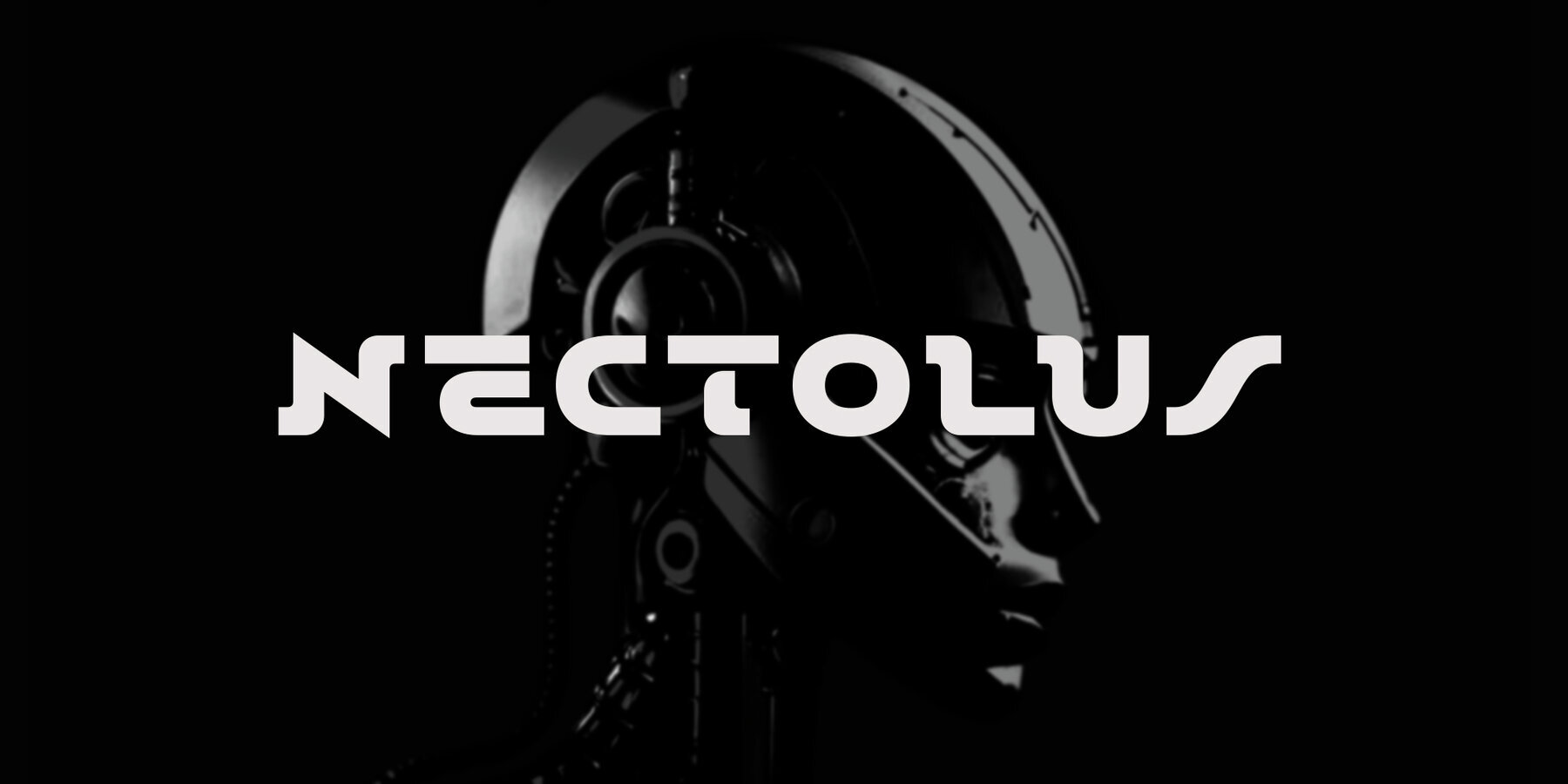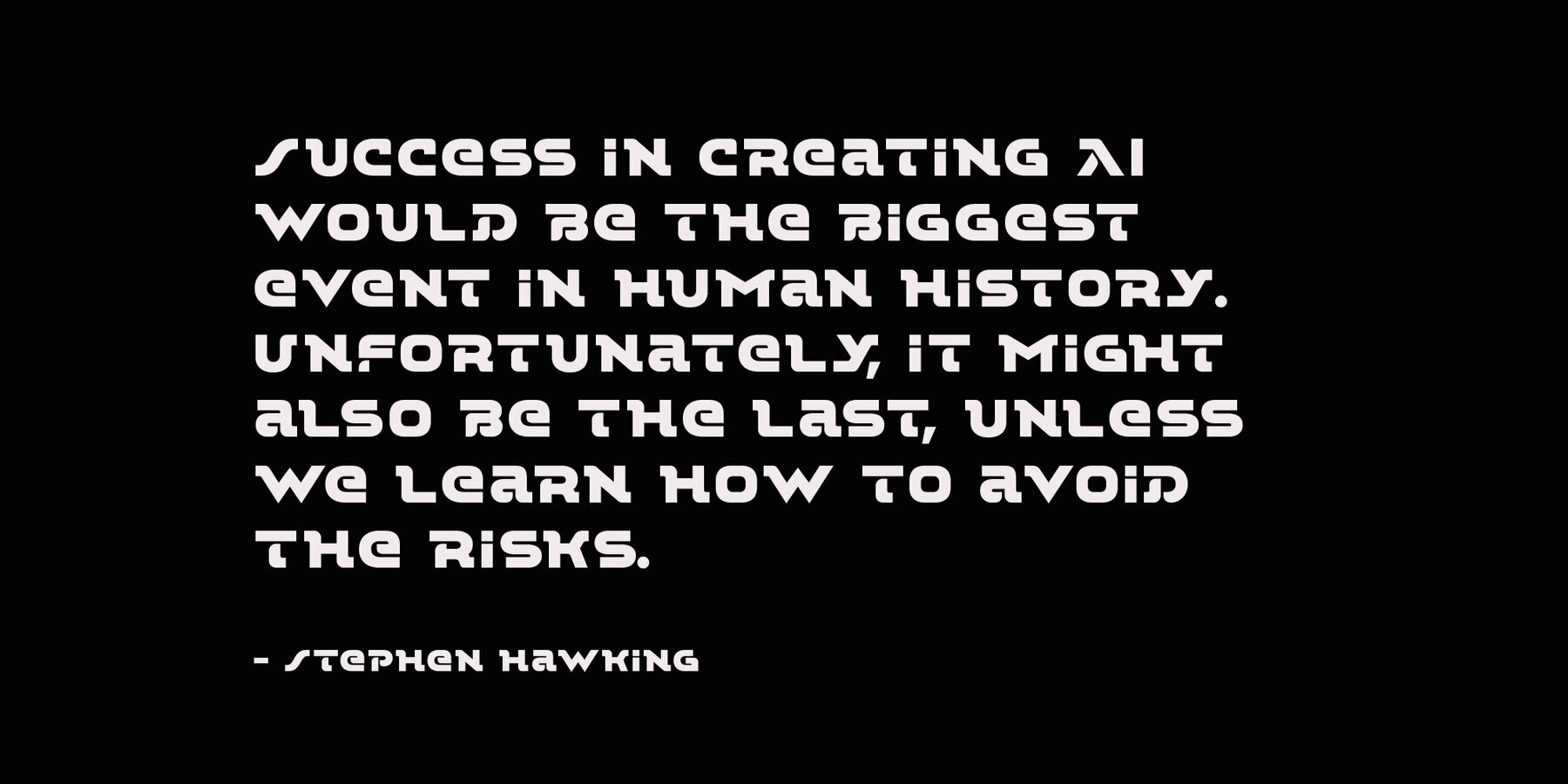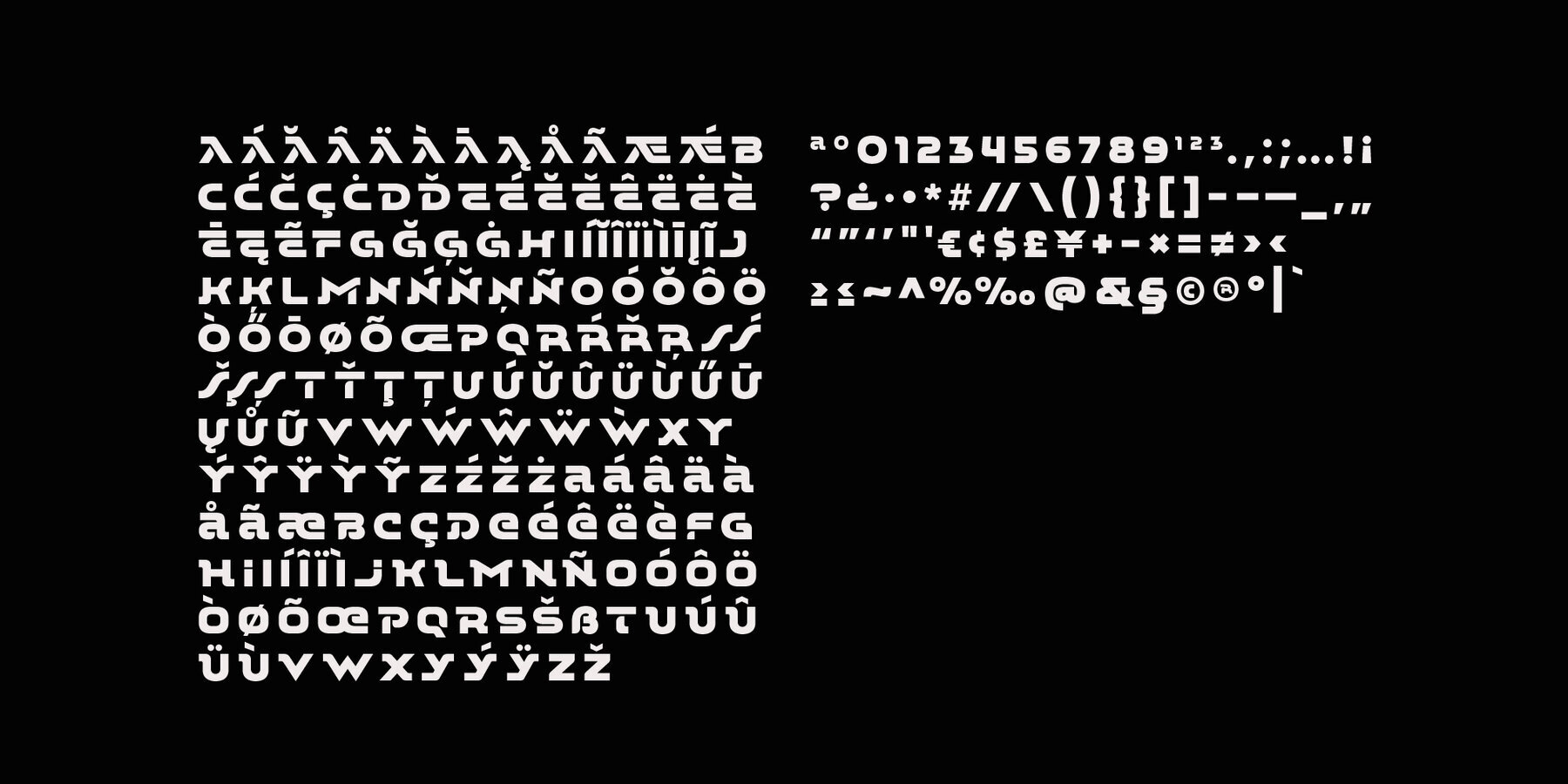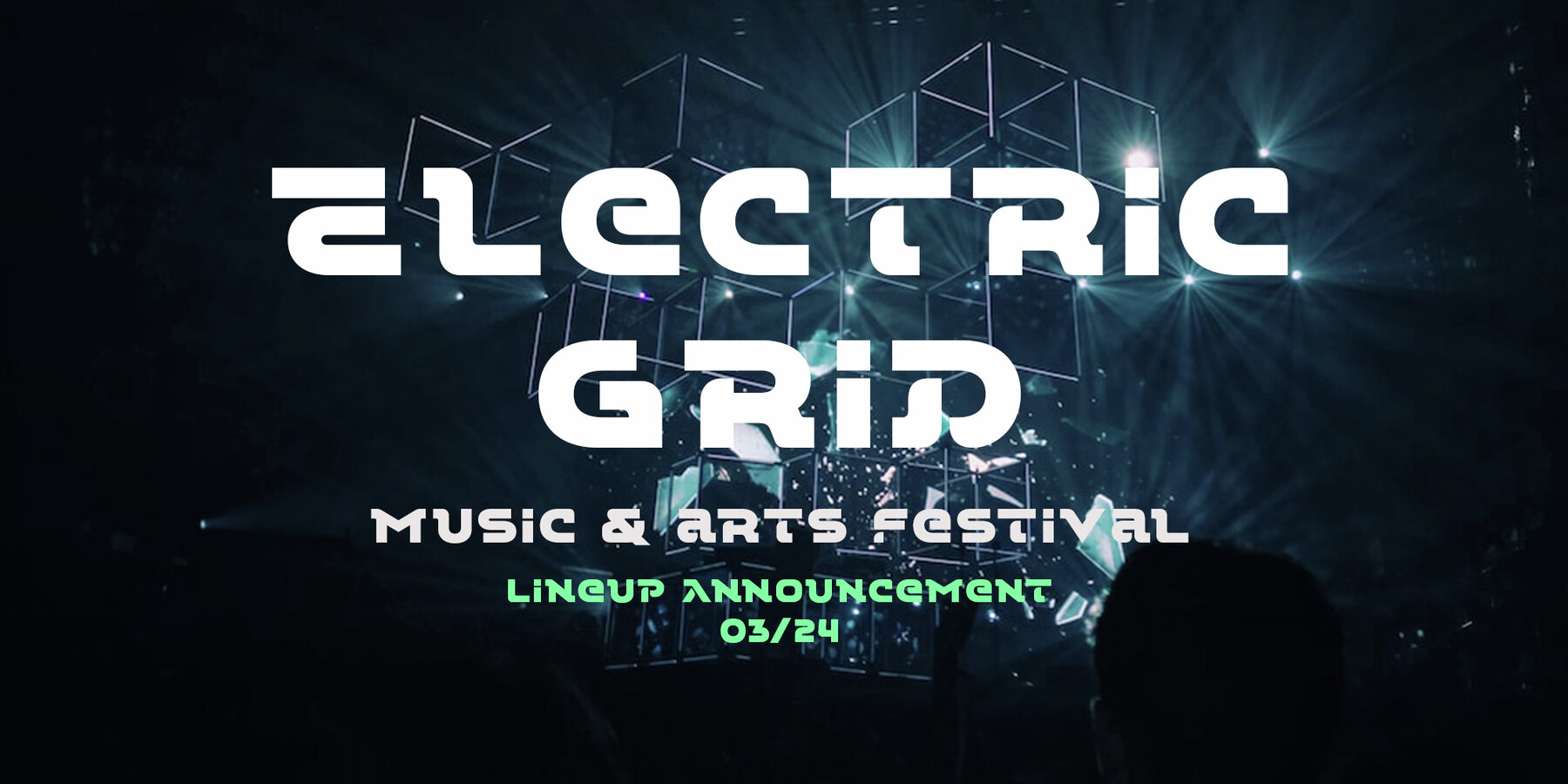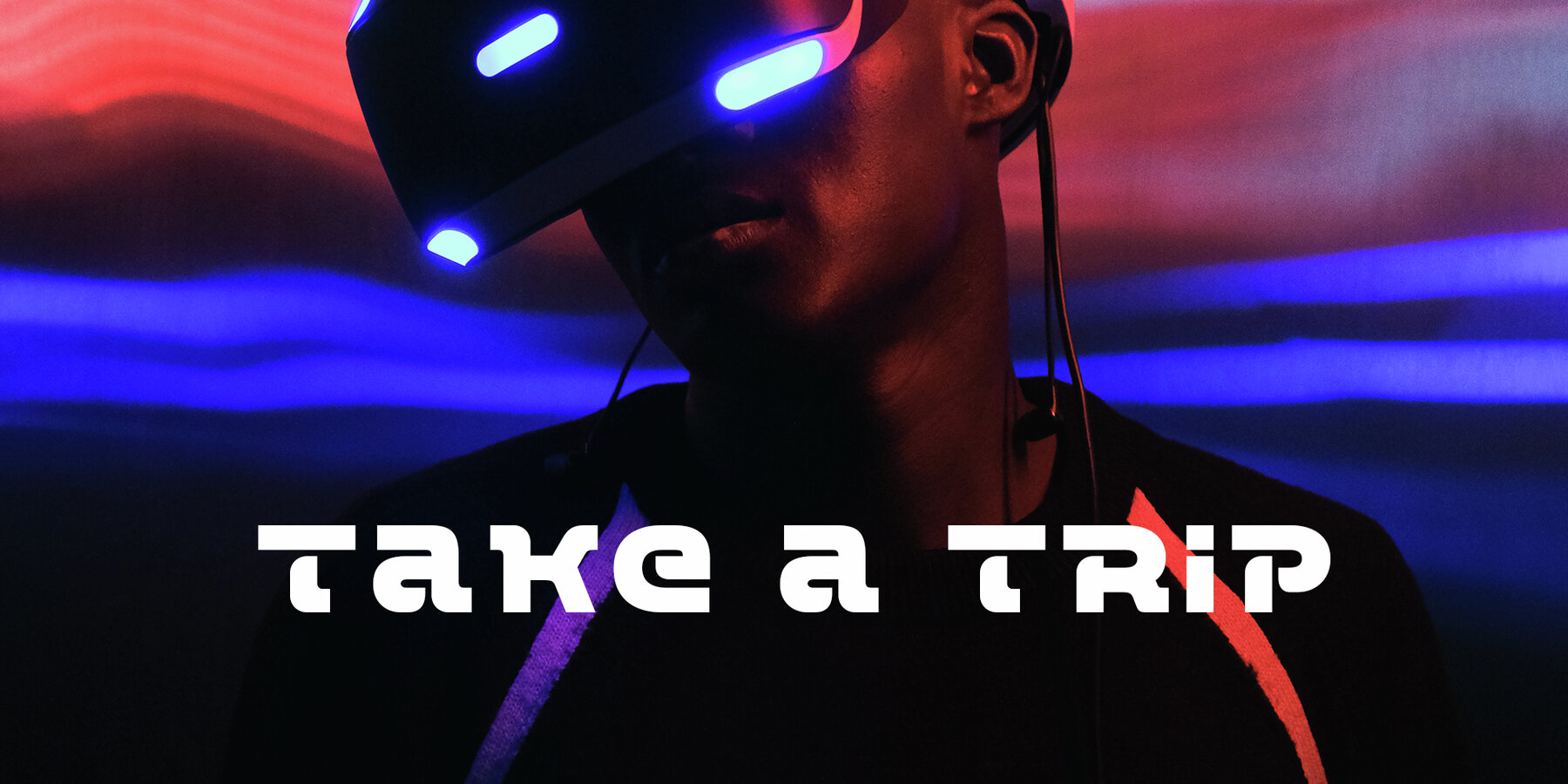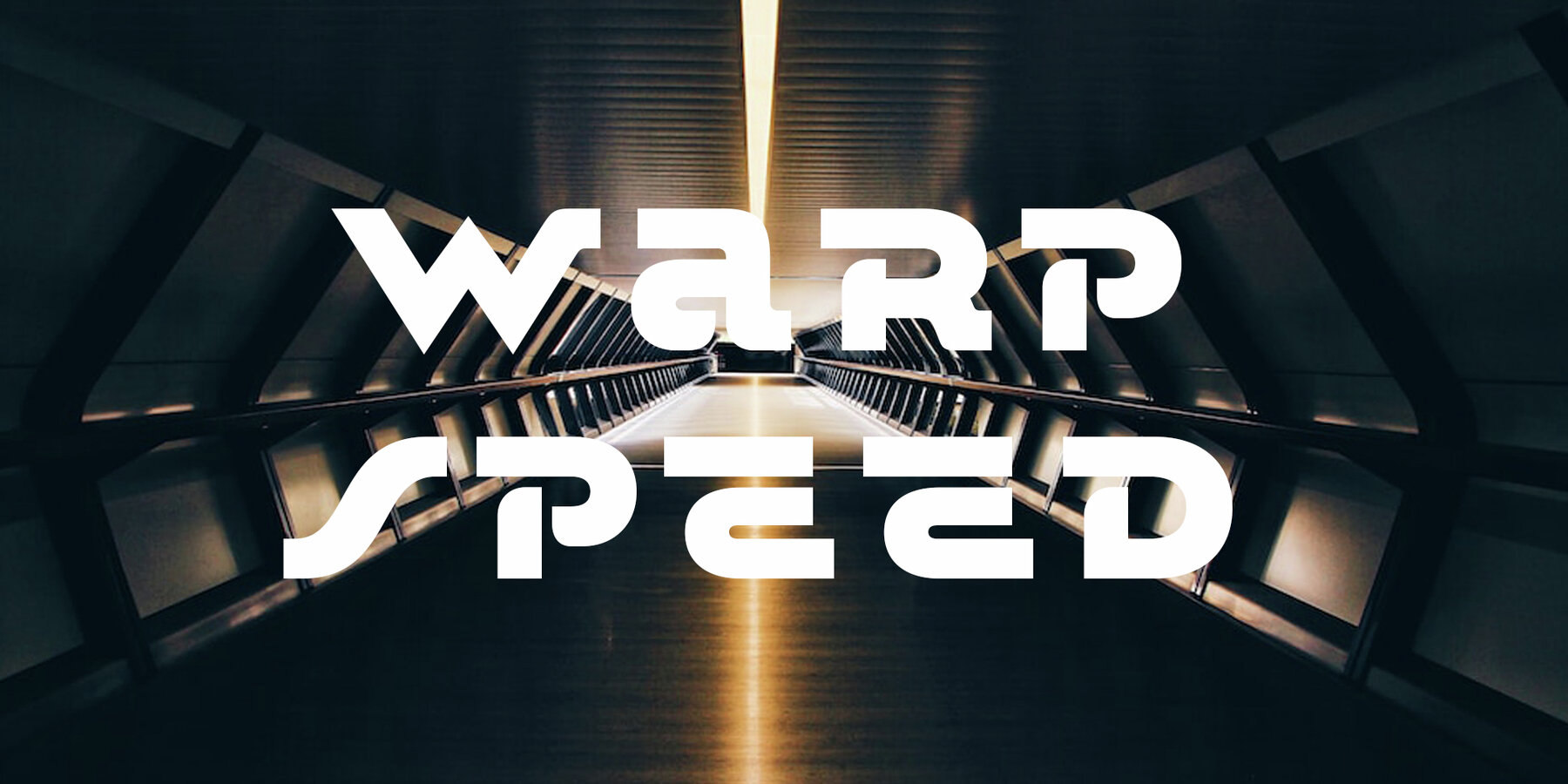
Nectolus Font
Nectolus Regular
Nectolus is a bold & dynamic display font with futuristic technology vibes. This font has unique sets of upper & lowercase characters that work together seamlessly. Mix your characters to create eye catching logos, headlines, advertisements, packaging and marketing content. Nectolus also includes multilingual characters.